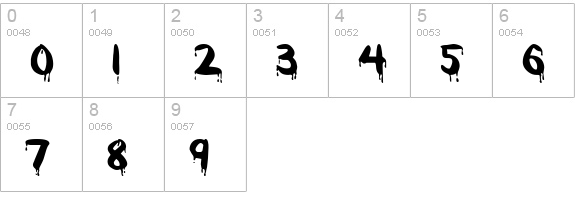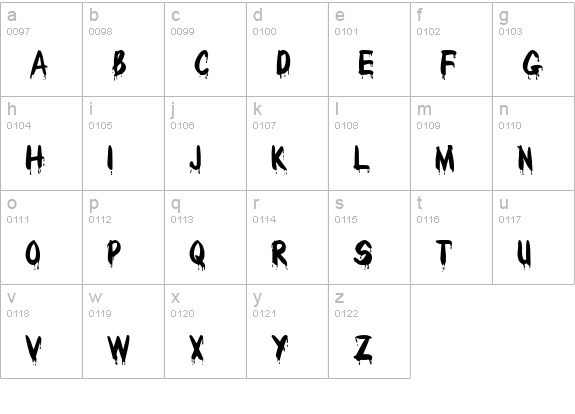
Drips Normal Font Details
Drips Normal is the standard, neutral variant in the Drips typeface family \xE2\x80\x94 well suited to general body text, paragraphs, and standard typographic work.
Drips Normal font is a versatile and modern typeface that exudes creativity and energy. With its unique and playful dripping effect on the letters, this font is perfect for projects that require a touch of whimsy and originality. Whether you're designing posters, logos, or social media graphics, Drips Normal font will make your text stand out and capture attention. The best part? Drips Normal font is completely free to download at FontsMarket.com, making it accessible to all designers and creatives looking to add a fun and dynamic element to their work. Don't miss out on this opportunity to enhance your designs with this eye-catching font that is sure to make a statement!